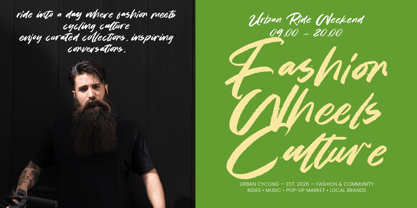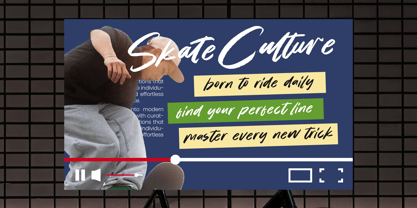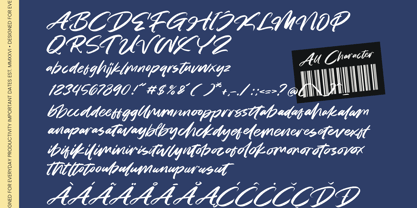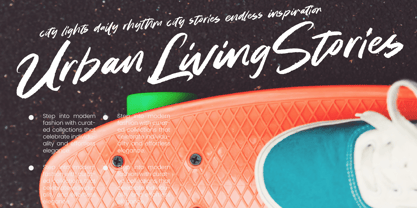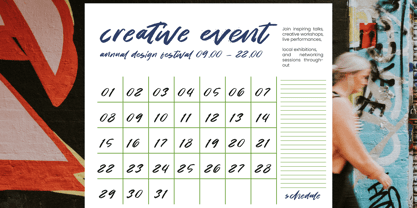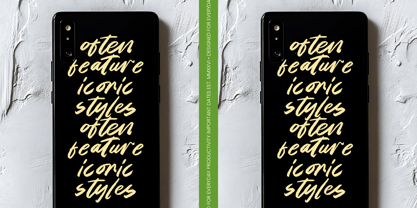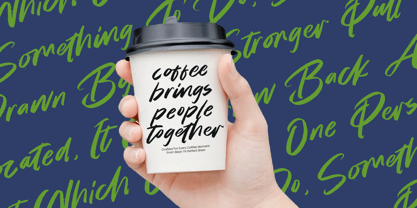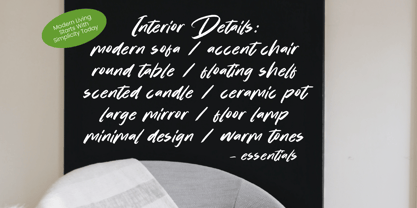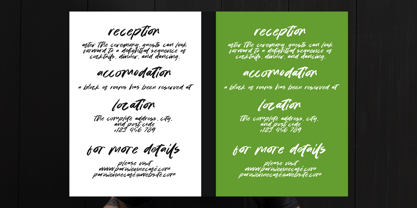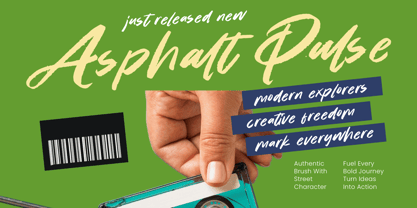
Asphalt Pulse
by Stylishtype Studio
The Asphalt Pulse Font Family was designed by Heru Utama Putra and published by Stylishtype Studio. Asphalt Pulse contains 2 styles and family package options. More about this family
Unleash raw energy and urban edge with Asphalt Pulse, a typeface designed to command attention and ignite creative sparks. This handwritten brush font captures the rhythm of the city, blending organic texture with a defiant, fast-paced aesthetic.
Inspired by the spontaneous marks of street art and the fluid motion of ink on concrete, this font brings an authentic, pulse-pounding atmosphere to every canvas. It bridges the gap between traditional calligraphy and the grit of modern metropolitan life, offering a truly unique visual narrative.